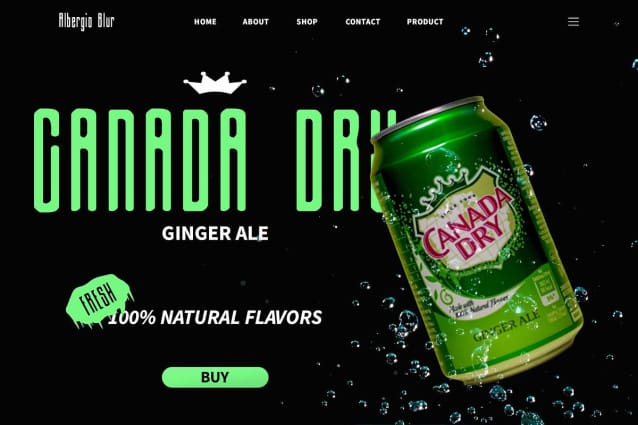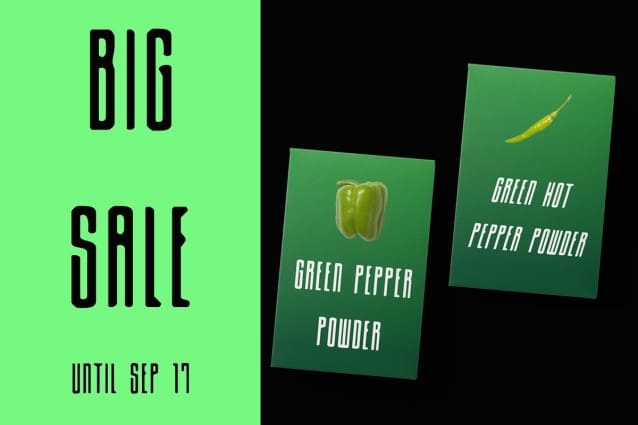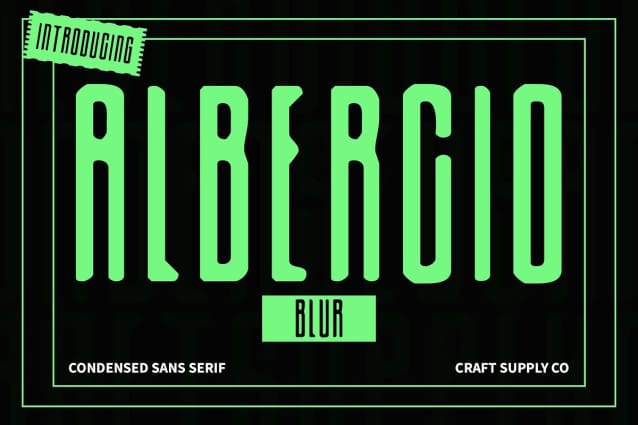
Albercio Blur Font
Albercio Blur Font: Blurred Elegance. Condensed Sans Serif Design Albercio Blur features a sleek condensed sans serif design that exudes modernity and sophistication. Its compact letterforms make it ideal for capturing attention in display settings.
Low Contrast with Blur Effect With its low contrast and blur effect, This font creates a unique visual impact, resembling ink smudges or paintbrush strokes. This distinctive feature adds a dynamic and artistic flair to any design.
Perfect for Display Purposes This font is perfectly suited for display purposes, where its blurred effect can make a bold statement. Whether used in headlines, banners, or logos, it adds a touch of intrigue and creativity.
Versatile Application Despite its distinctive blur effect, This font remains versatile in its application. It can be used across a range of design projects, including posters, signage, and digital interfaces, where its condensed form and unique aesthetic shine.
Modernity with a Blurred Twist This font offers a contemporary take on the sans serif genre, with its condensed form and intriguing blur effect. Whether used for bold headlines or subtle accents, it adds a touch of elegance and creativity to any design project.